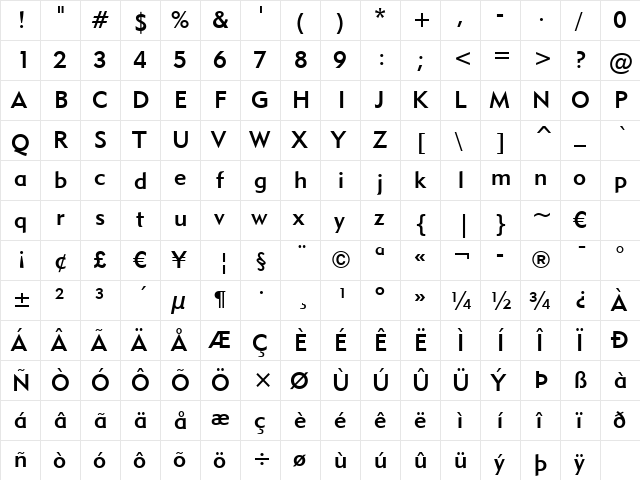
Geometr415 Md BT Medium
Design Context for Geometr415 Md BT Typeface
Geometr415 Md BT is a composed and adaptable typeface that performs quietly and consistently across a wide range of design contexts.